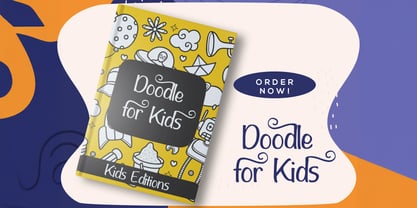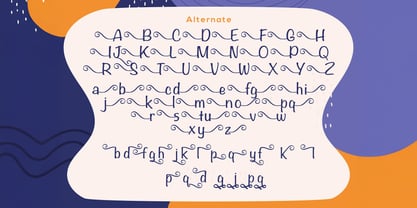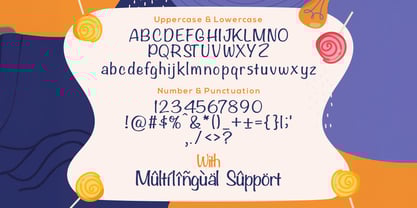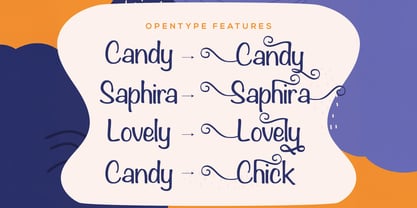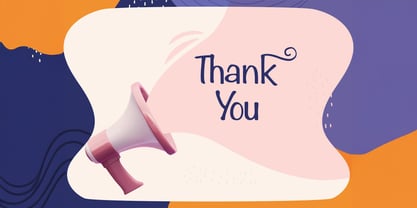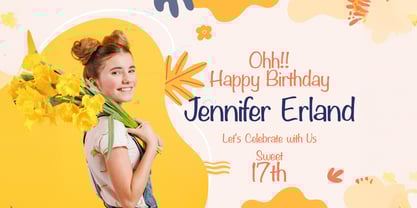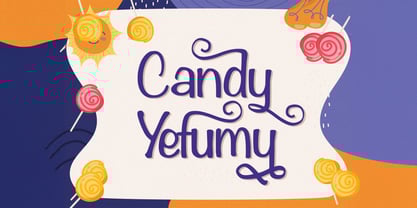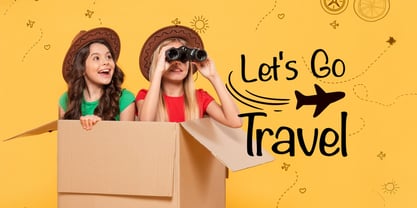
Candy Yefumy
by Stringlabs Creative Studio
The Candy Yefumy Font Family was designed by Virgiawan Listanto and published by Stringlabs Creative Studio. Candy Yefumy contains 1 styles.
Candy Yefumy is delightful and playful display font that adds a sweet, charming touch to any design. With its curvy, bubbly letterforms and vibrant energy, Candy Yefumy is perfect for projects that need a fun and inviting feel.
Designers: Virgiawan Listanto
Publisher: Stringlabs Creative Studio
Foundry: Stringlabs Creative Studio
Design Owner: Stringlabs Creative Studio